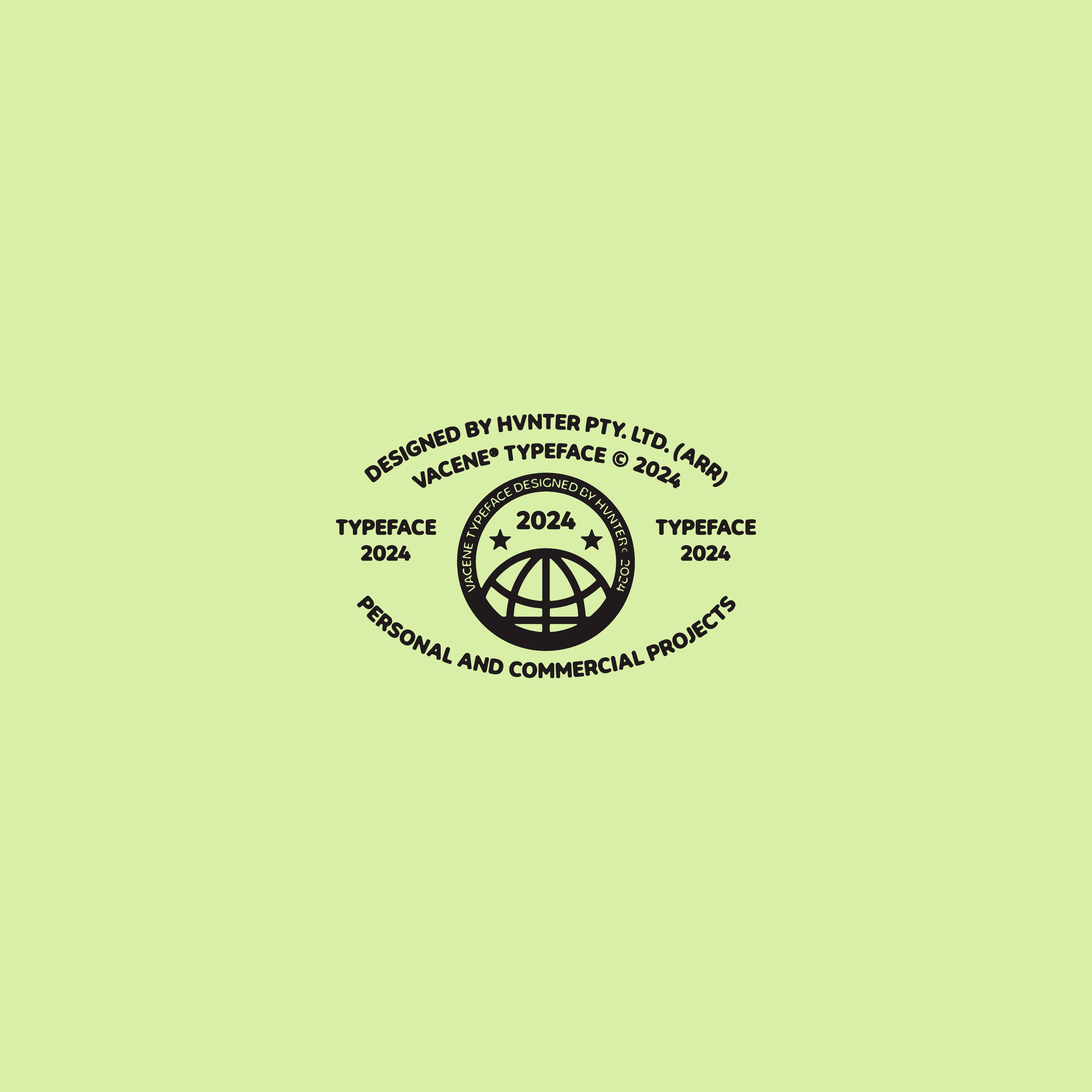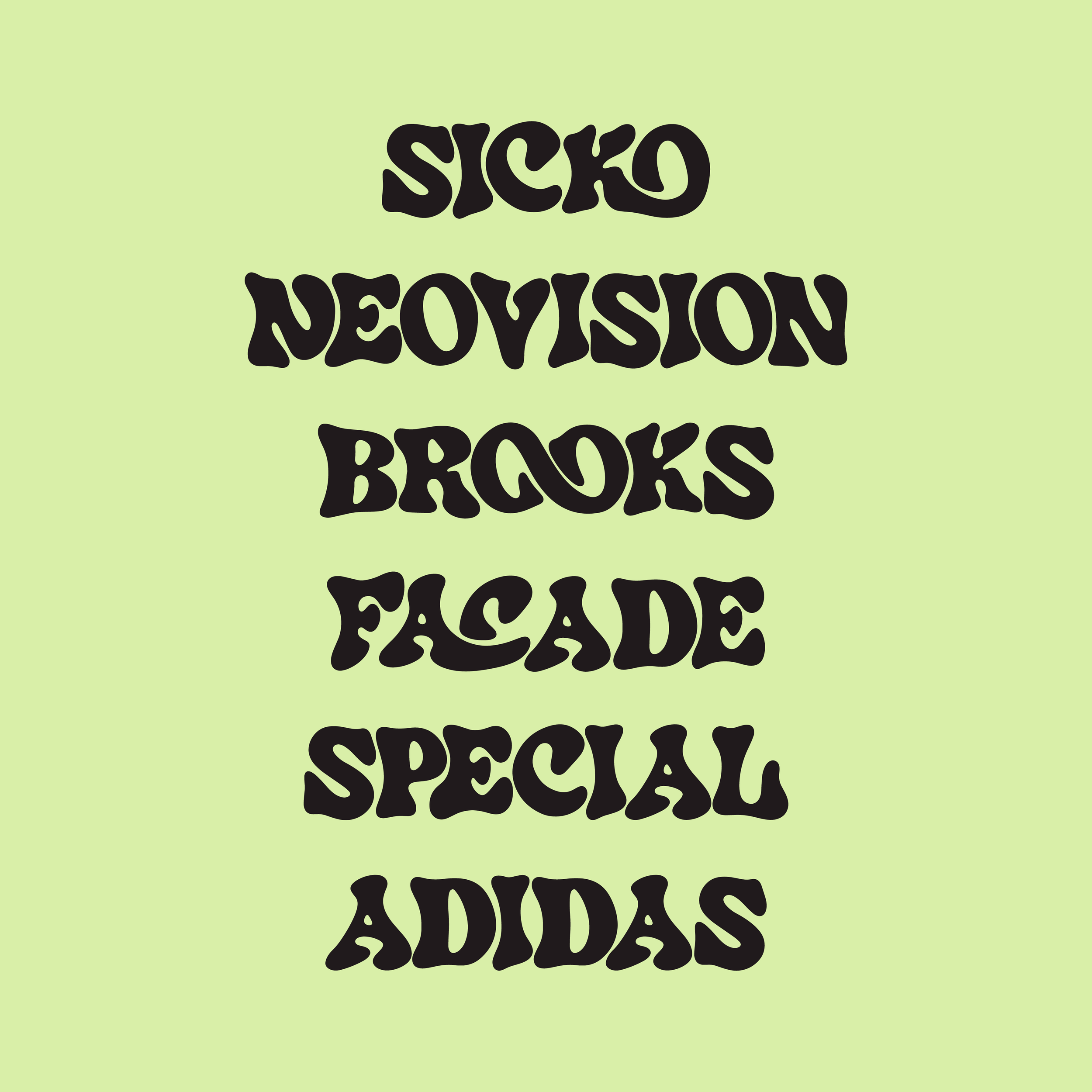
ALL PRODUCTS › Vacene Typeface $15.00 Hand drawn typeface!Includes A-Z, 0-9, basic symbols + letter variations (shown in images)For personal & commercial use! Hand drawn typeface!Includes A-Z, 0-9, basic symbols + letter variations (shown in images)For personal & commercial use! Purchase Added! Reviews Reviewer Name Review Date Star Rating Description Posted on Etsy Product Show More You Might Also Like Pulsar Typeface $15.00 Shin Typeface $15.00 Gizmo Typeface $20.00 Berrie Typeface $20.00 Ether Typeface $20.00